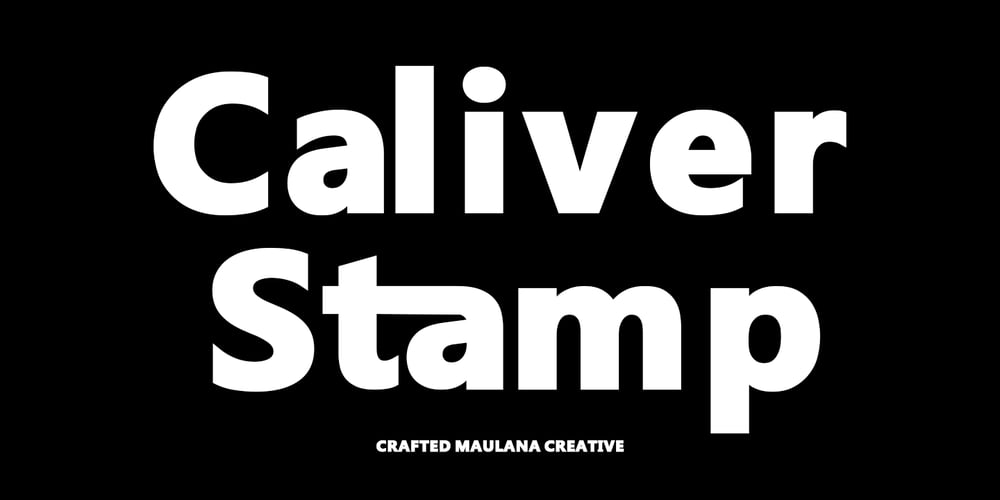
MC Caliver Stamp Font Family was designed by Gilang Maulana and published by Maulana Creative. MC Caliver Stamp contains 1 styles and family package options. Caliver Stamp is a sans serif font. Heavy stroke, fun character with a bit of ligatures. To give you an extra creative work. Caliver Stamp sans serif font support multilingual more than 100+ language. This font is good for logo design, Social media, Movie Titles, Books Titles, a short text even a long text letter and good for your secondary text font with script or serif. Make a stunning work with Caliver Stamp sans serif font.